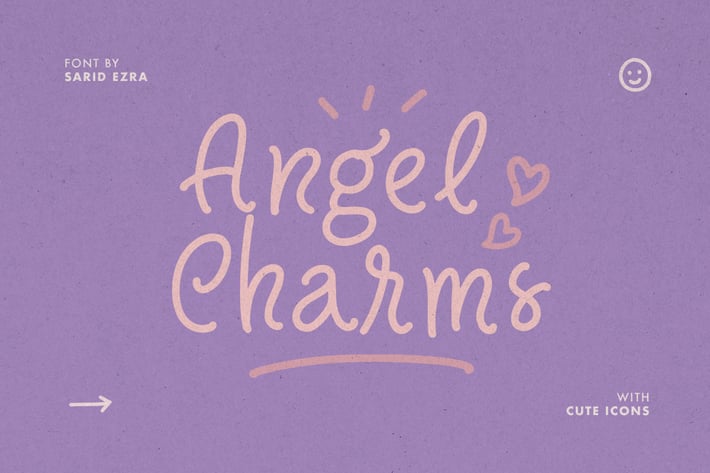
Angel Charms - Cute Font
Angel Charms is a handwritten font with cute vibes. This font comes with cute icons that you can access from opentype features. You can use this font for your logo branding, wedding, or a cute quote for your instagram post. This font also support multilingual.